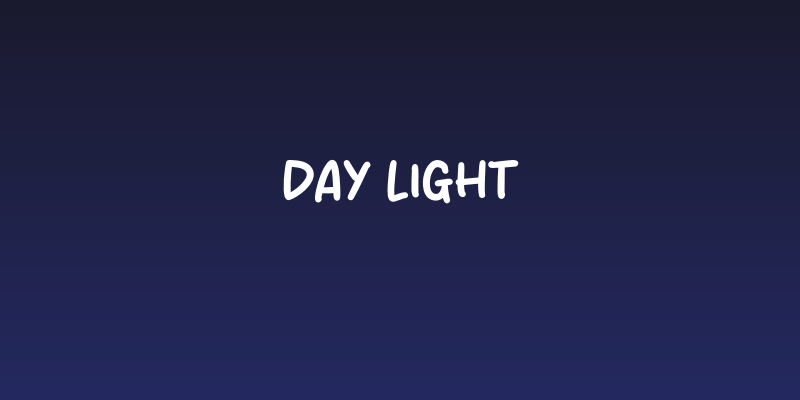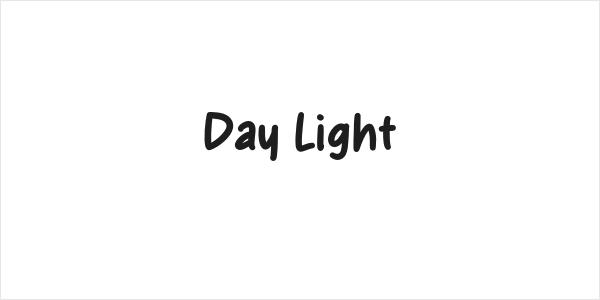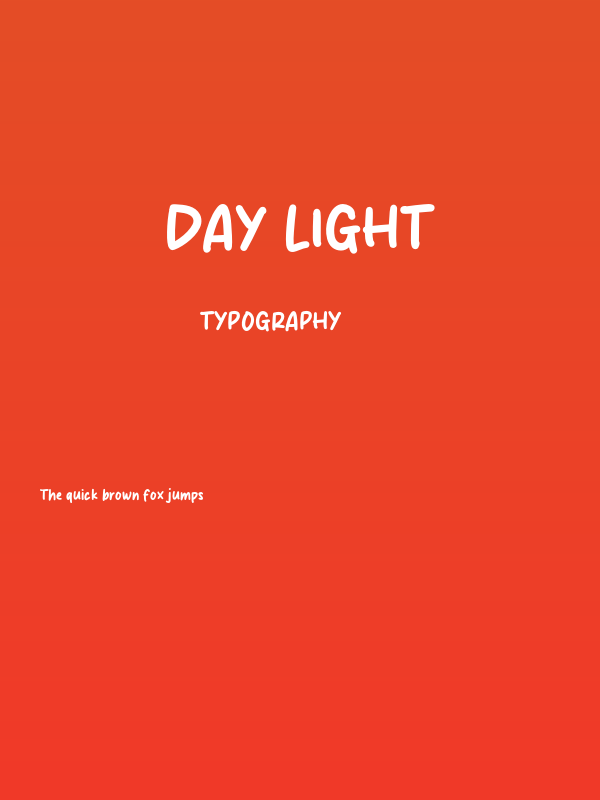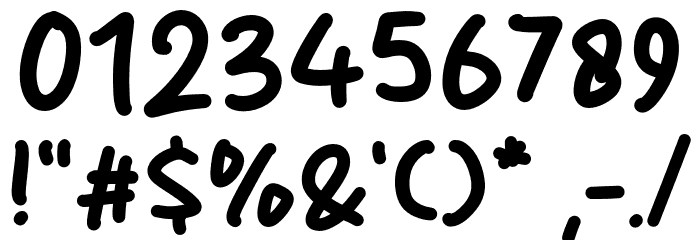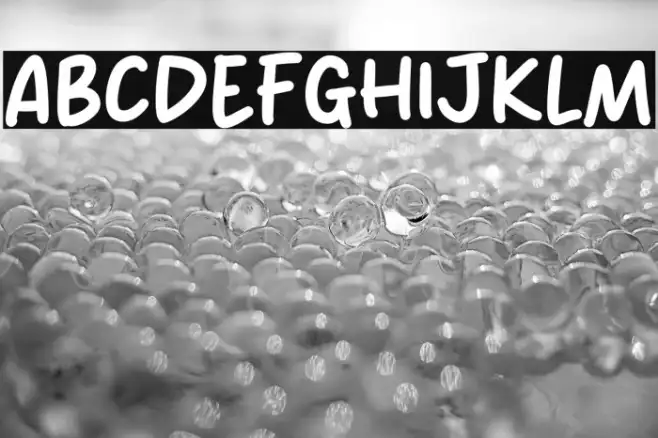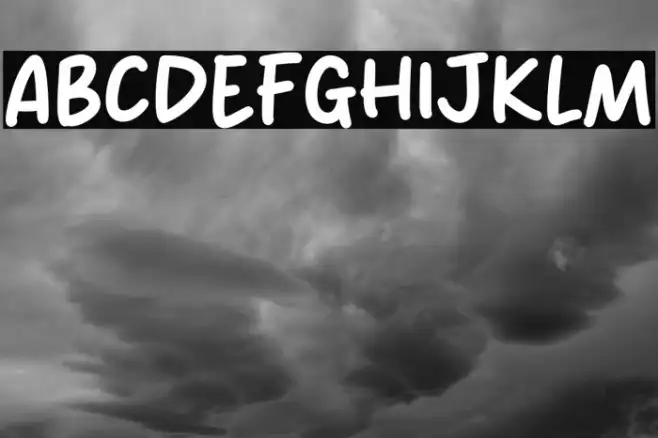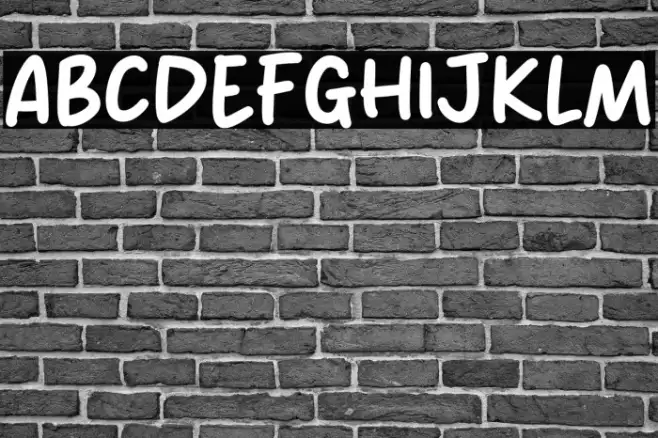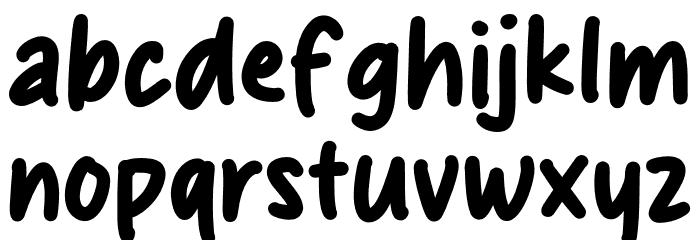
Day Light Font
Day Light Description
This font features a playful and bold handwritten style, characterized by its rounded and smooth letterforms. The strokes are consistent in thickness, giving it a uniform appearance that enhances readability. The uppercase and lowercase letters maintain a casual and friendly vibe, making it suitable for informal and creative projects. The numbers and special characters are designed to match the overall style, ensuring cohesion across different text elements. Its approachable and lively design makes it ideal for projects that aim to convey warmth and personality.
| Proposed Projects | Ideal for children's books, greeting cards, playful branding, and social media graphics. |